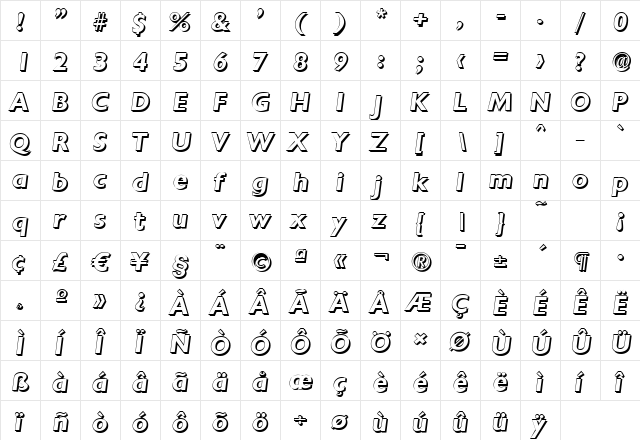
DavidBeckerShadow BoldItalic Font Preview
Design Context for DavidBeckerShadow Typeface
DavidBeckerShadow brings ornamental detail and strong personality to headlines and identities, where visual impact matters more than quiet functionality. Its italic angle brings a sense of urgency and motion to the letterforms. The heavy weight commands attention and anchors typographic hierarchies.
Font Pairing: Pair with a clean neutral sans-serif for body copy to let DavidBeckerShadow's character lead without overwhelming the composition.
Pro Tip: Treat DavidBeckerShadow as the centrepiece of your typographic hierarchy. One strong heading set in a decorative face can carry an entire layout.